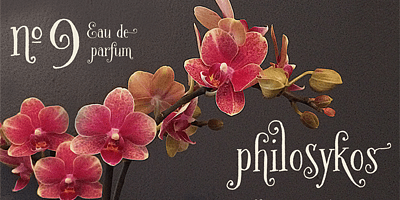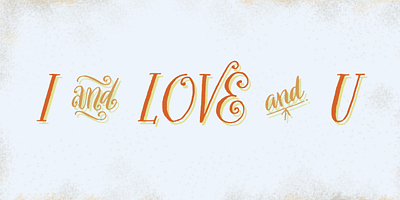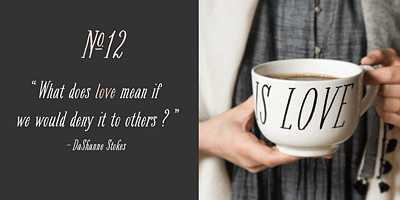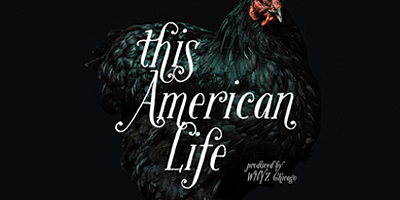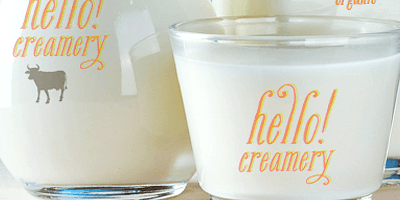
Bookeyed, a hand-drawn serif family created by dip pen on paper. Wonderful for vintage & artisan aesthetics. Includes alt glyphs & stylistic ligatures w/ OpenType features. As the name suggests, it’s a great choice for book design.